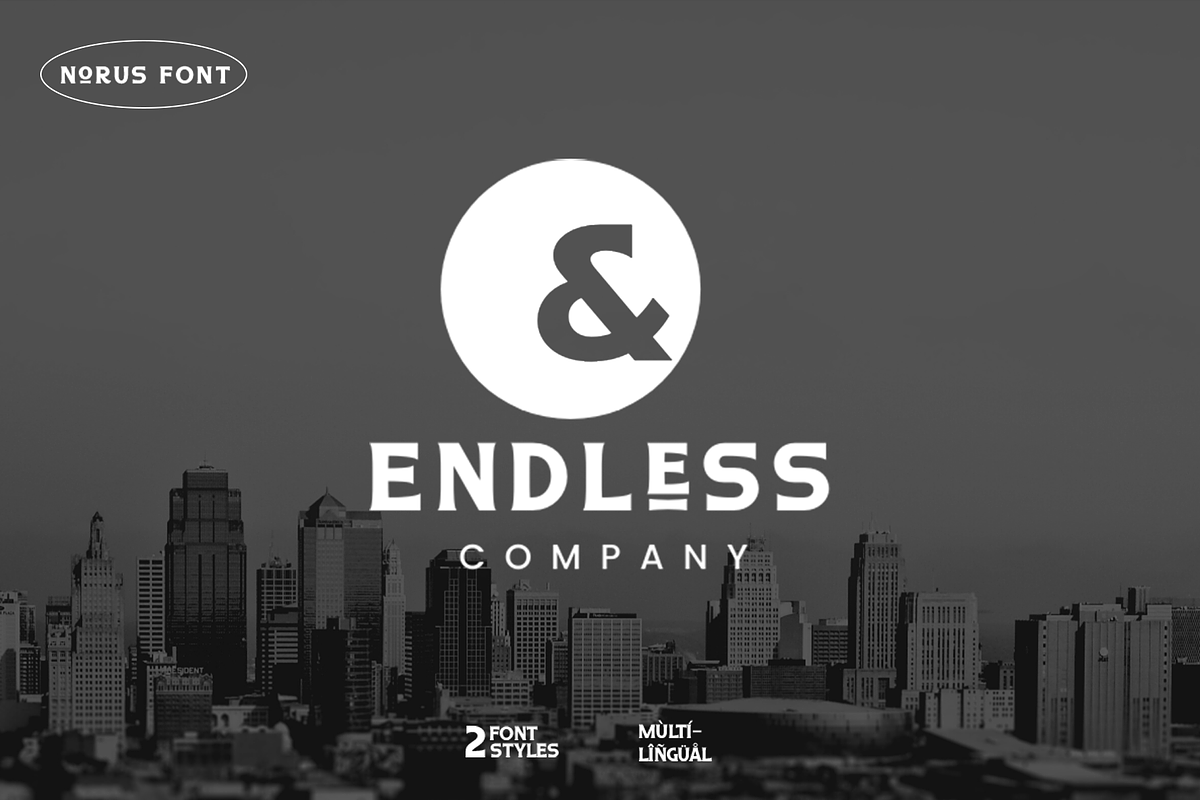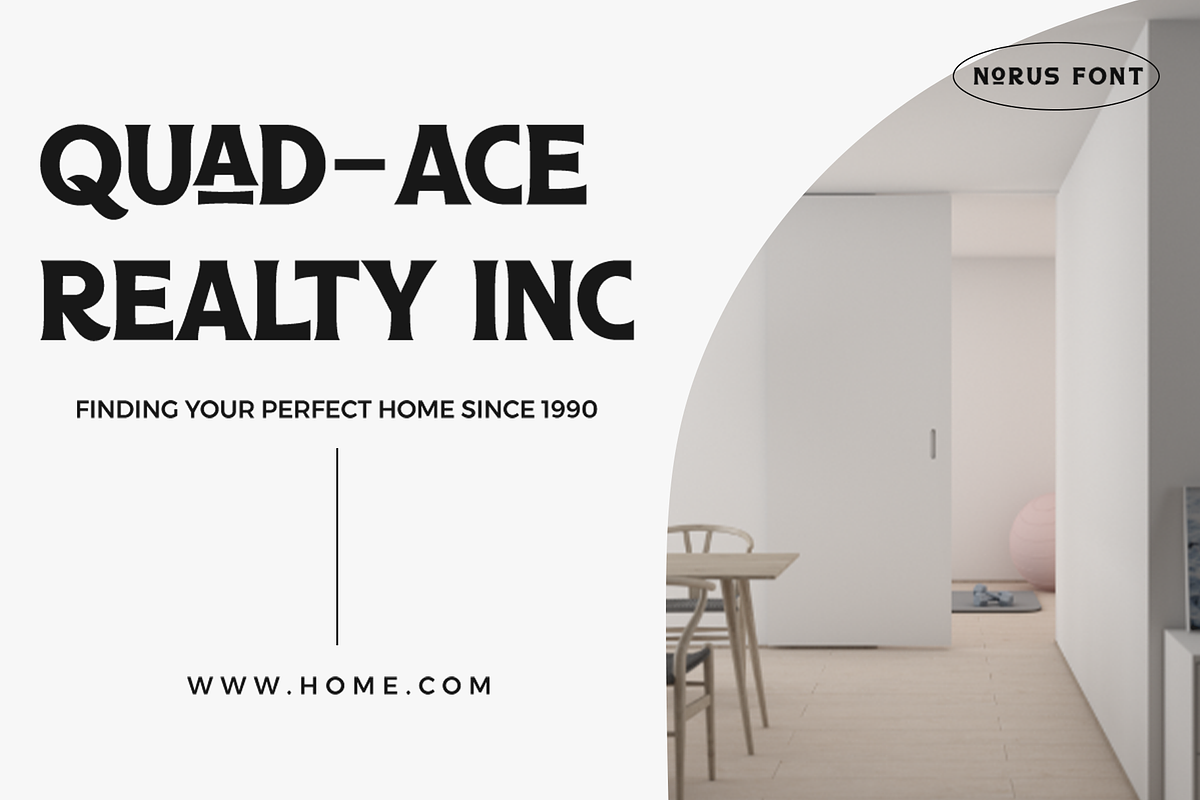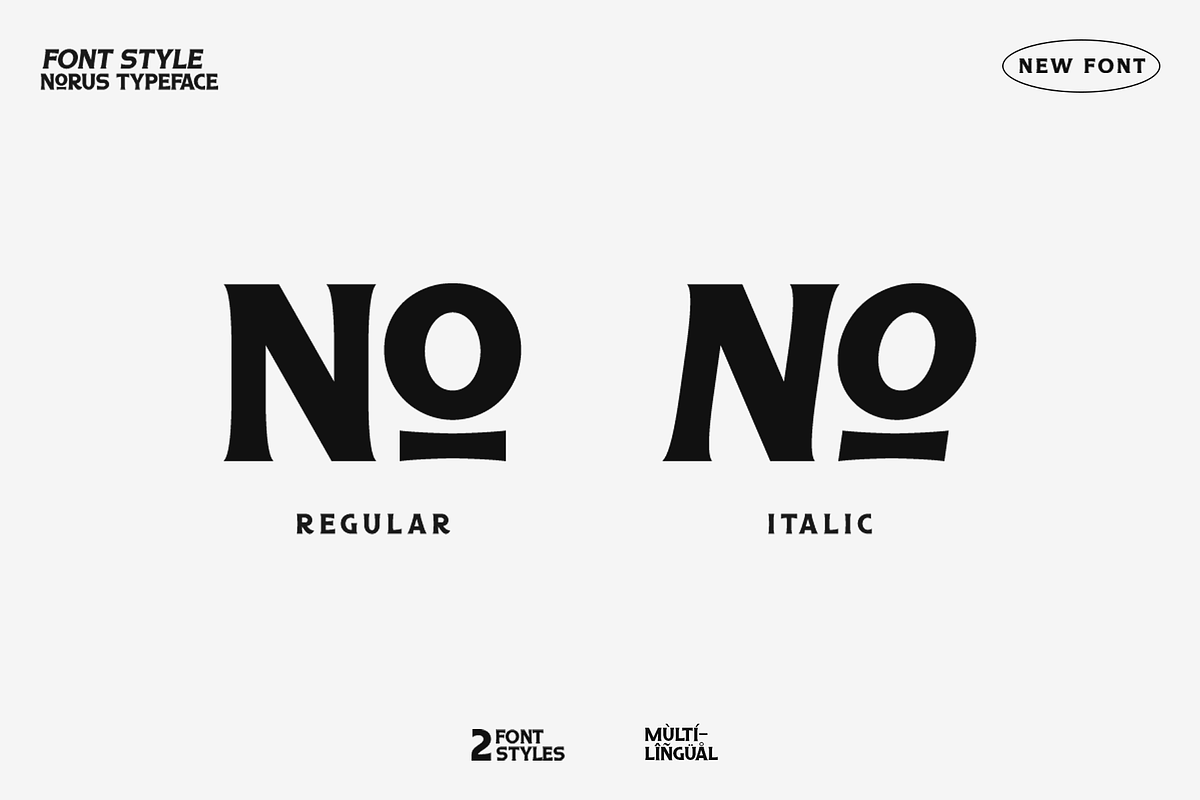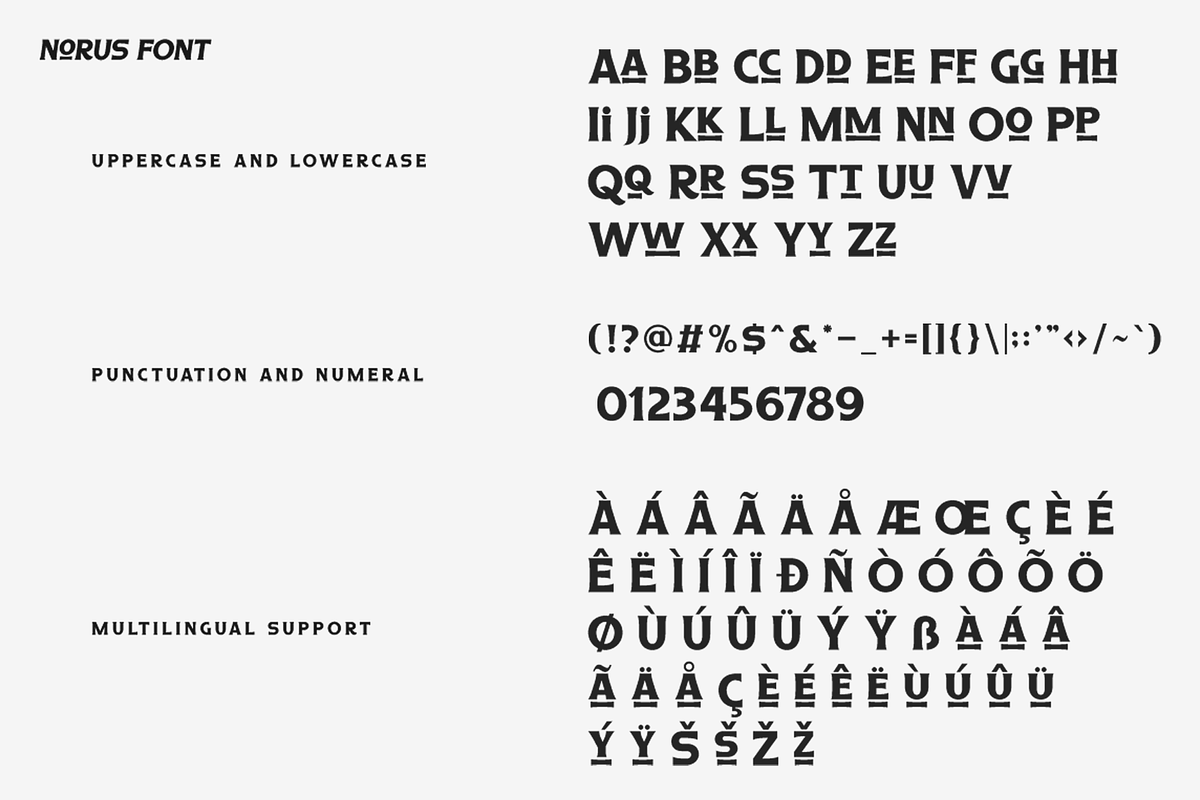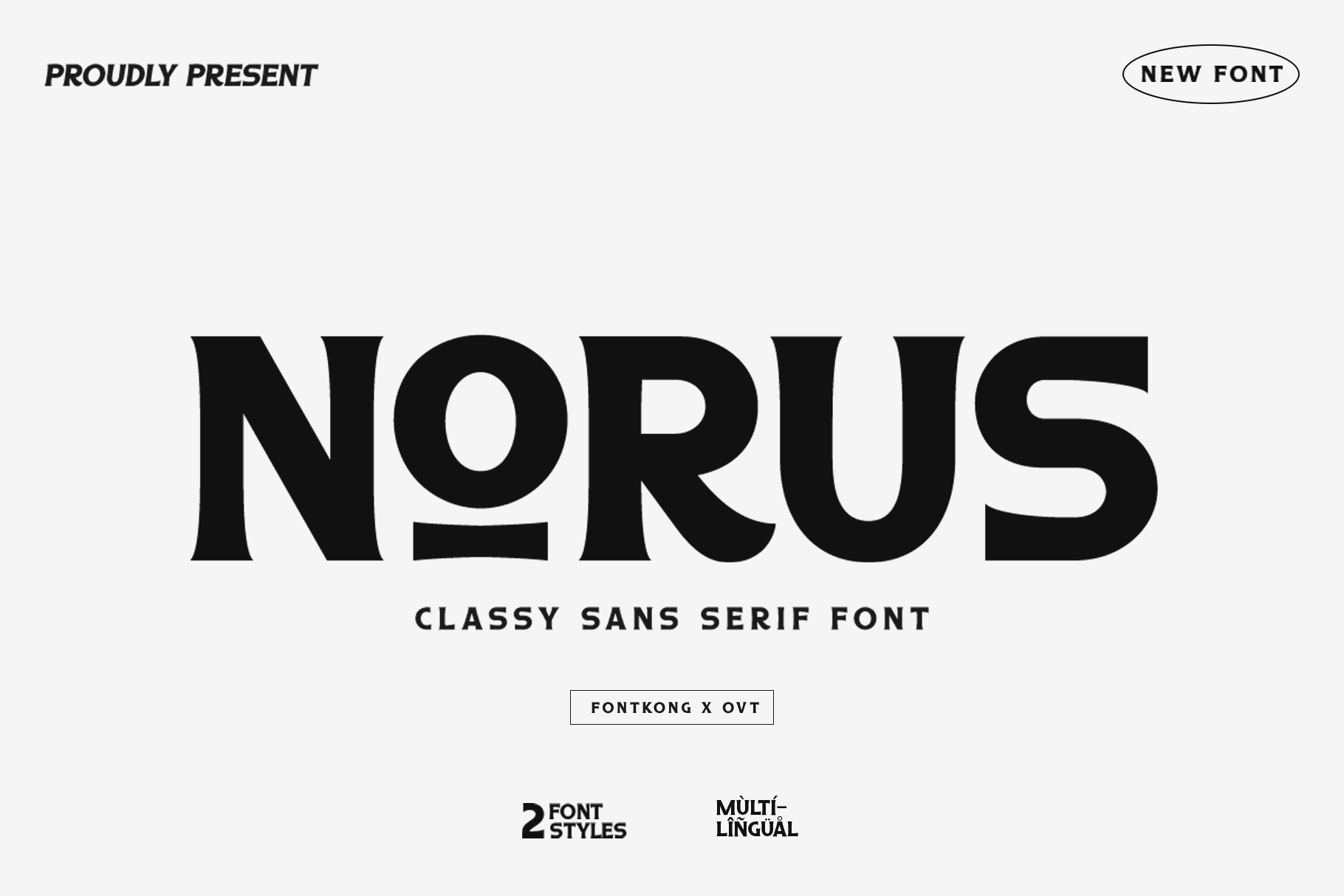
Norus - Classy Sans Serif Font
Introducing "Norus," a classy sans serif font that embodies modern elegance with clean, precise lines. Designed for sophistication and impact, Norus is ideal for a variety of applications, from sleek corporate branding to stylish digital content and elegant print media.
Norus’s minimalist design features balanced proportions and uncluttered shapes, making it exceptionally readable and visually appealing. This font is perfect for those who want to convey professionalism and modernity, whether it’s through sophisticated advertisements, compelling web design, or polished presentations. With its versatile character set, including uppercase and lowercase letters, numerals, punctuation, and extensive language support, Norus ensures comprehensive usability and style.
Whether crafting a new logo, designing a user interface, or developing marketing materials, Norus provides a refined touch that enhances the overall aesthetic of your projects. It’s the go-to choice for designers seeking a sans serif font that marries functionality with contemporary elegance.
Norus is your essential sans serif font for crafting designs that resonate with modernity and sophistication.